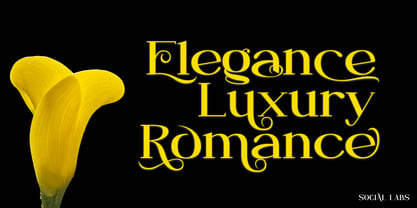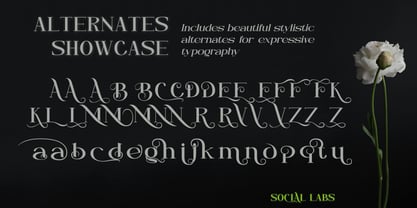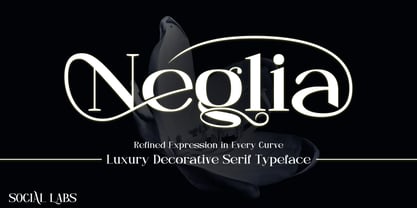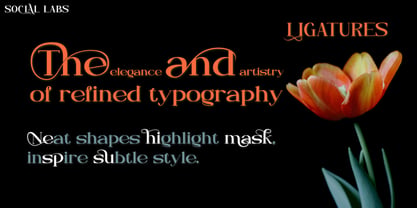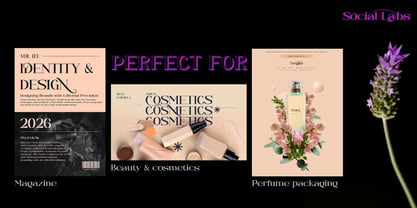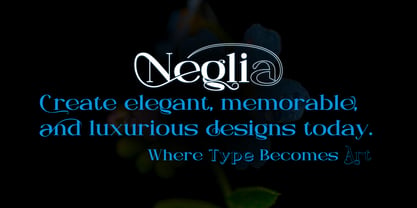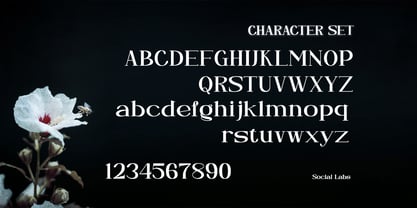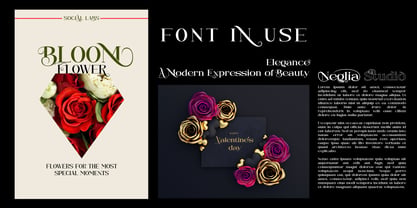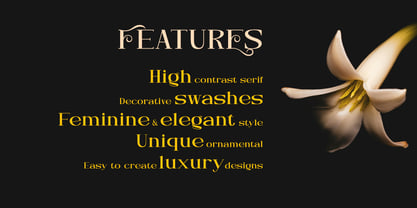
Neglia
by Social Labs
The Neglia Font Family was designed by Muhammad Naufal and published by Social Labs. Neglia contains 6 styles and family package options. More about this family
Neglia is a luxury decorative serif font featuring elegant high-contrast strokes, stylish ligatures, and ornamental alternates, designed for modern, classy, and feminine branding, perfect for fashion, beauty, perfume packaging, editorial design, wedding invitations, logos, and premium typography projects that require a clean, sophisticated, romantic, and stylish display typeface with a refined and artistic touch.
Designers: Muhammad Naufal
Foundry: Social Labs